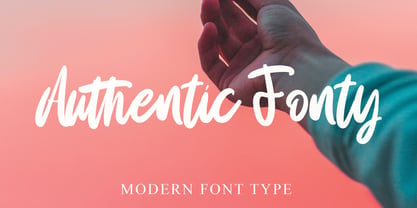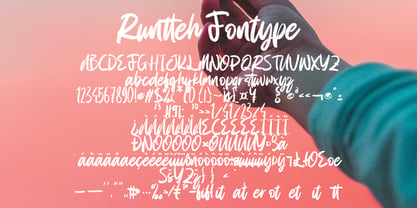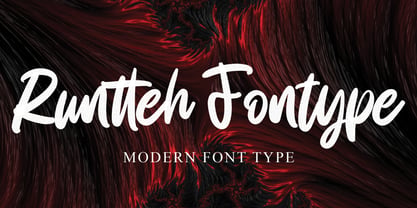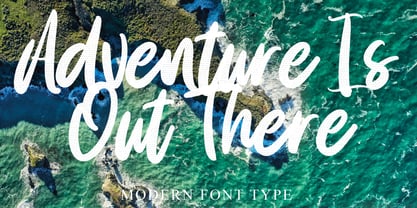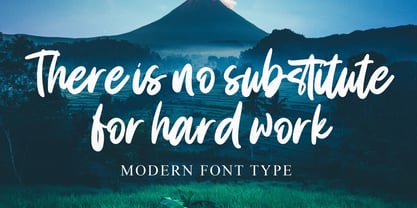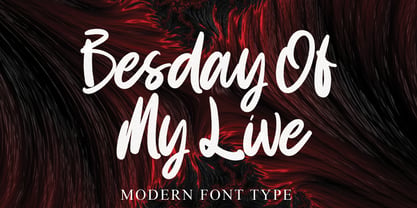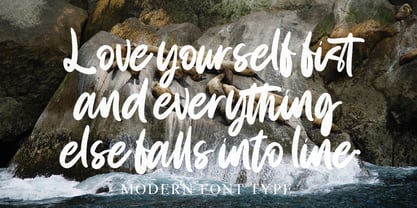
Runtteh Fontype
by Naatypo
The Runtteh Fontype Font Family was designed by Kurnia Elis Setyorini and published by Naatypo. Runtteh Fontype contains 1 styles. More about this family
Plunge into the innovative radiance of Runtteh Fontype - a prominent, robust script typeface that couples modern sophistication with a rounded approach. This joyous font not only encapsulates the spirit of modern excitement and magnetic charm but also boasts a versatile demeanor that ensures your designs brim with an unparalleled peculiarity. Able to breathe life into captivating visuals, instill personality into a brand's ethos, or inject vibrance into a logo, Runtteh Fontype is your go-to script for creating magical invitations, building visionary advertisements, and formulating unforgettable wedding themes. Moreover, this gem of a font brings an extra sparkle when tailoring product packaging, carving distinctive product designs, creating personalized labels, or drafting attention-grabbing posters. Ideally harmonizing with photography and notable events, Runtteh Fontype amounts to an intoxicating mix of trend, charm, and distinctive elegance for every design aspiration.
Designers: Kurnia Elis Setyorini
Foundry: Naatypo